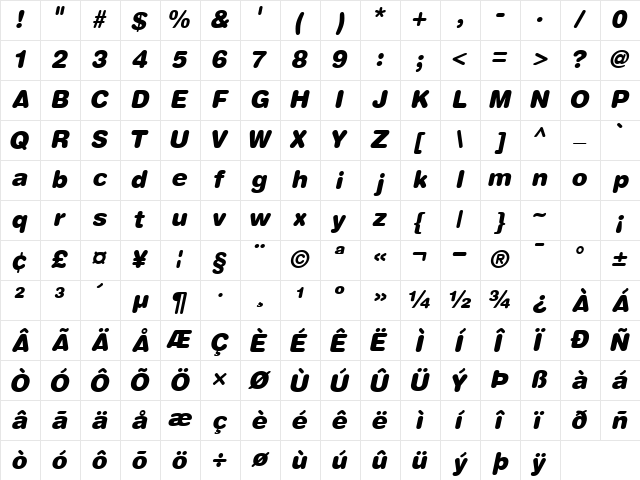
ContextRoundedBlackSSK Italic Free Font
Complete ContextRoundedBlackSSK Italic glyph index. Displaying only characters natively supported by ContextRoundedBlackSSK Italic font.
Design Context for ContextRoundedBlackSSK
ContextRoundedBlackSSK softens its letterforms with rounded terminals, giving it an approachable, friendly quality that works well in consumer-facing and digital contexts. The slanted form adds forward momentum and visual energy.
Font Pairing: Pairs well with a rounded or humanist sans for body copy, maintaining the friendly tone without relying on ContextRoundedBlackSSK to carry extended reading.
Pro Tip: Use ContextRoundedBlackSSK for UI elements, app interfaces, and anywhere a friendly, approachable tone needs to be maintained without sacrificing clarity.